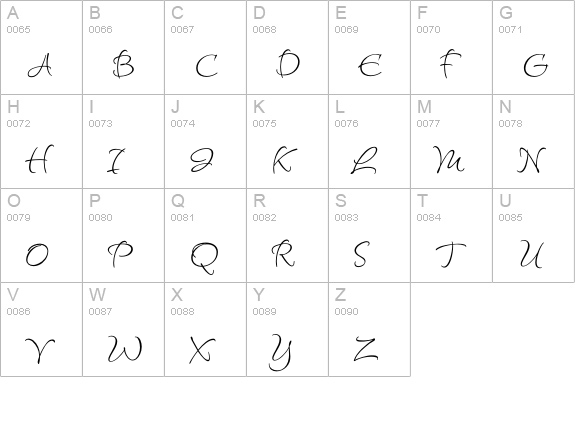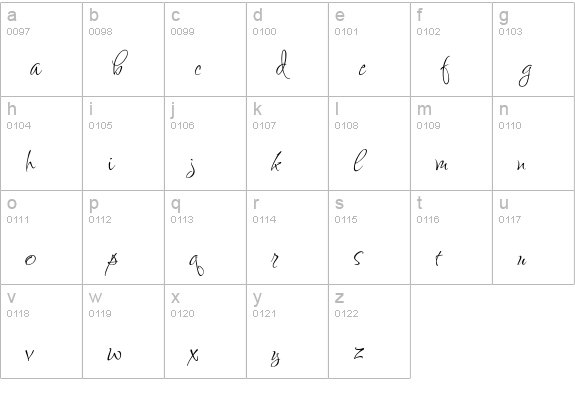
FugglesPro Font Details
FugglesPro font is a stylish and versatile typeface that combines classic elegance with a modern twist. Its sleek lines and graceful curves make it the perfect choice for a wide range of design projects, from branding to packaging to digital graphics. The font's clean and sophisticated appearance is sure to elevate any creative work to the next level. Best of all, FugglesPro font is available for free download at FontsMarket.com. This means that you can easily access this premium font without breaking the bank. Whether you're a seasoned designer looking to add a fresh new font to your collection or a beginner searching for the perfect typeface for your next project, FugglesPro font is a fantastic choice. Download it today and let your creativity flow with this beautiful and versatile font.